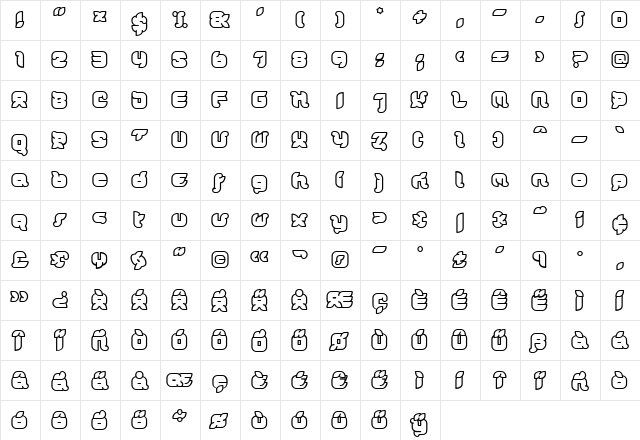
DorisOrangeJuicy Medium
Design Context for DorisOrangeJuicy Typeface
DorisOrangeJuicy is a composed and adaptable typeface that performs quietly and consistently across a wide range of design contexts.